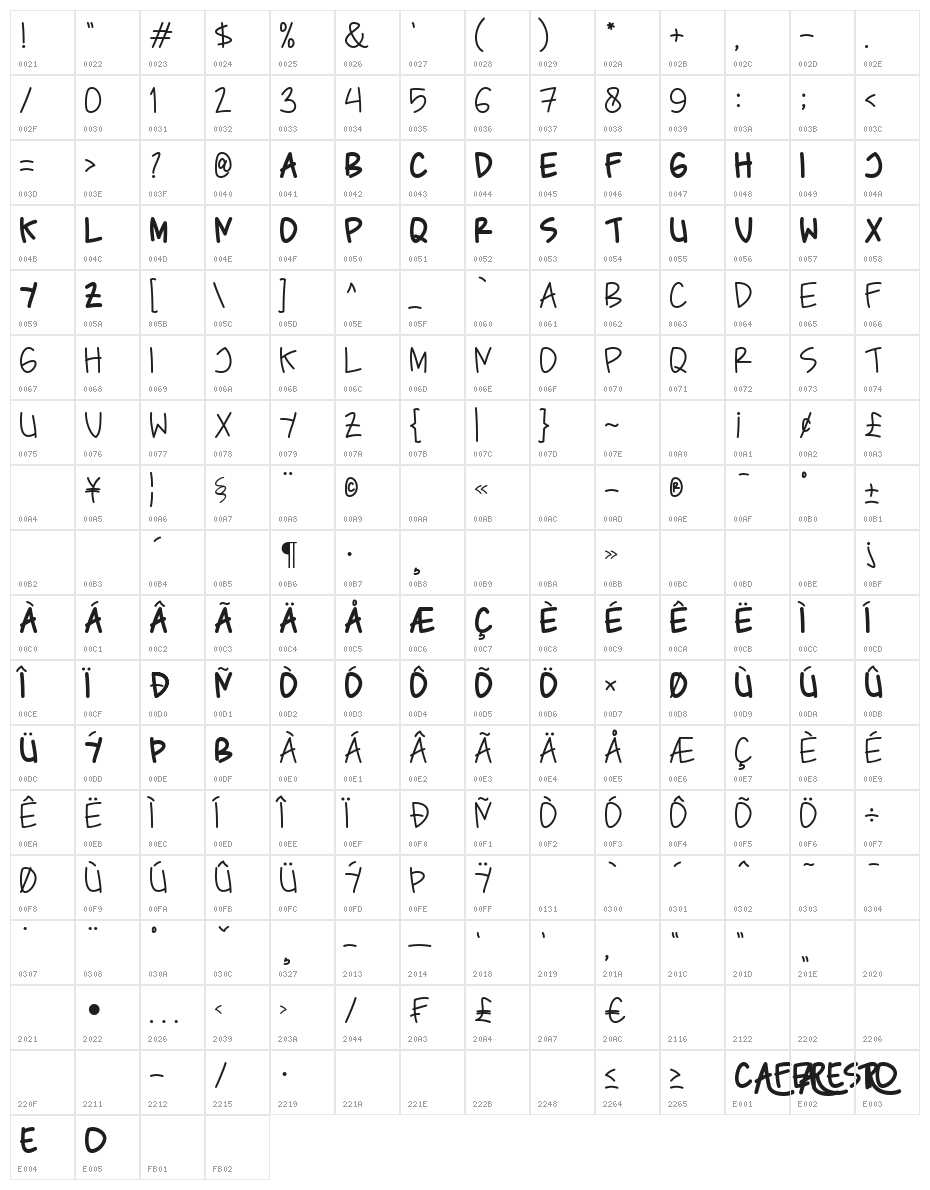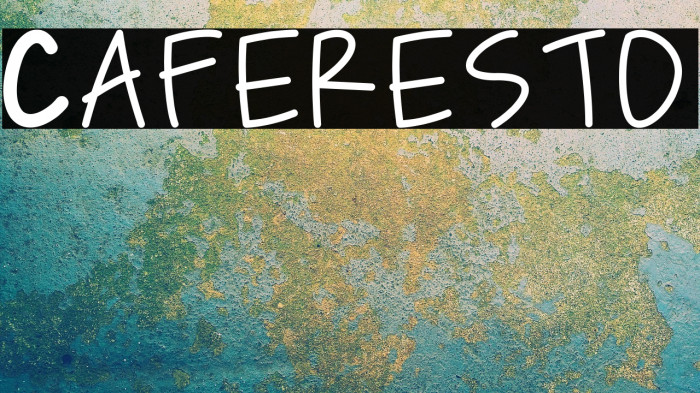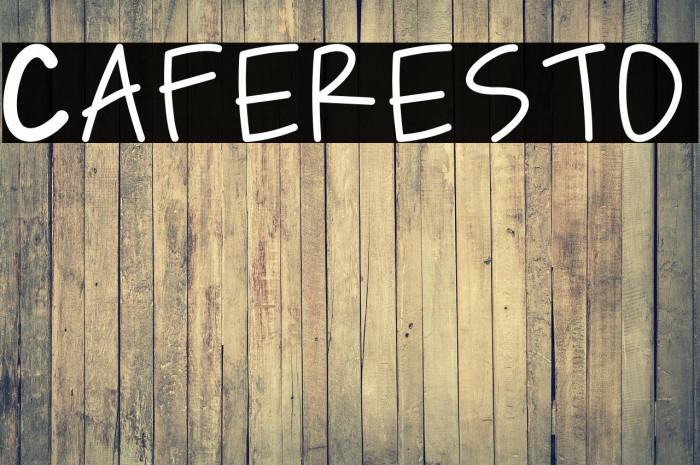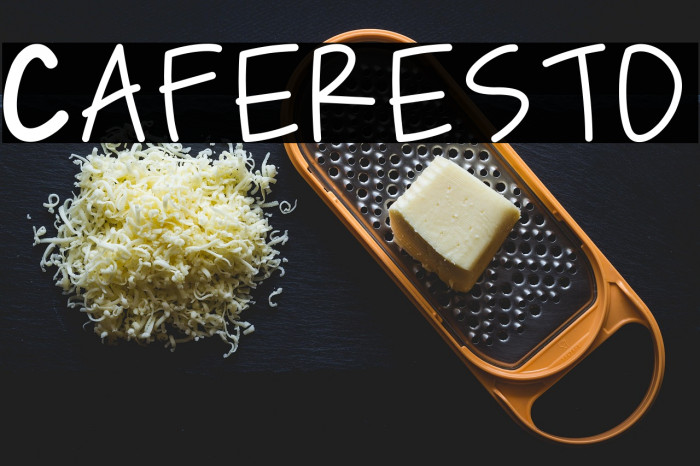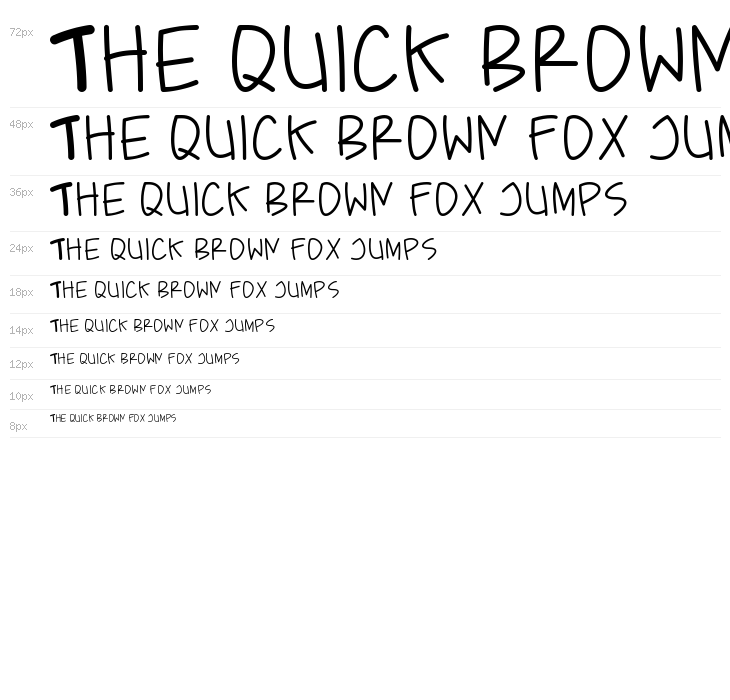
Caferesto Font
Caferesto Description
This font features a playful and casual handwritten style, characterized by its bold and slightly irregular strokes. The letters have a natural flow, mimicking the look of freehand writing with a marker or brush pen. The uppercase and lowercase letters maintain a consistent style, with rounded edges and a slight tilt, adding to the informal and friendly appearance. The numbers and special characters follow the same aesthetic, ensuring a cohesive look across all glyphs. This font is ideal for projects that require a personal touch, such as invitations, greeting cards, or branding for creative businesses.
| Proposed Projects | Ideal for invitations, greeting cards, creative branding, and informal designs. |